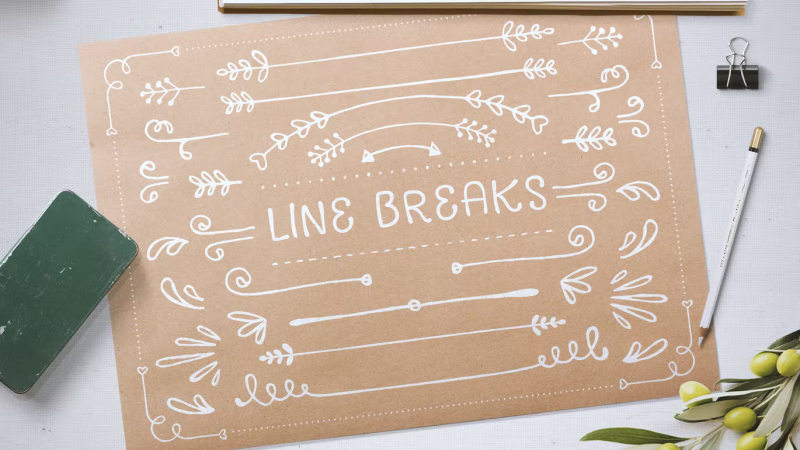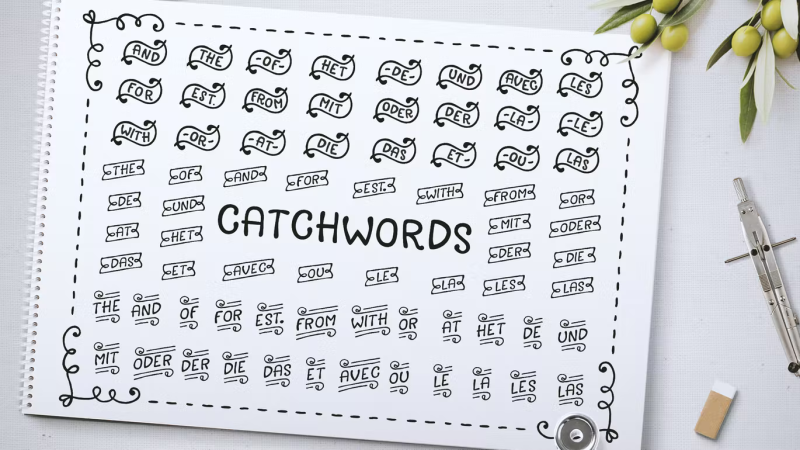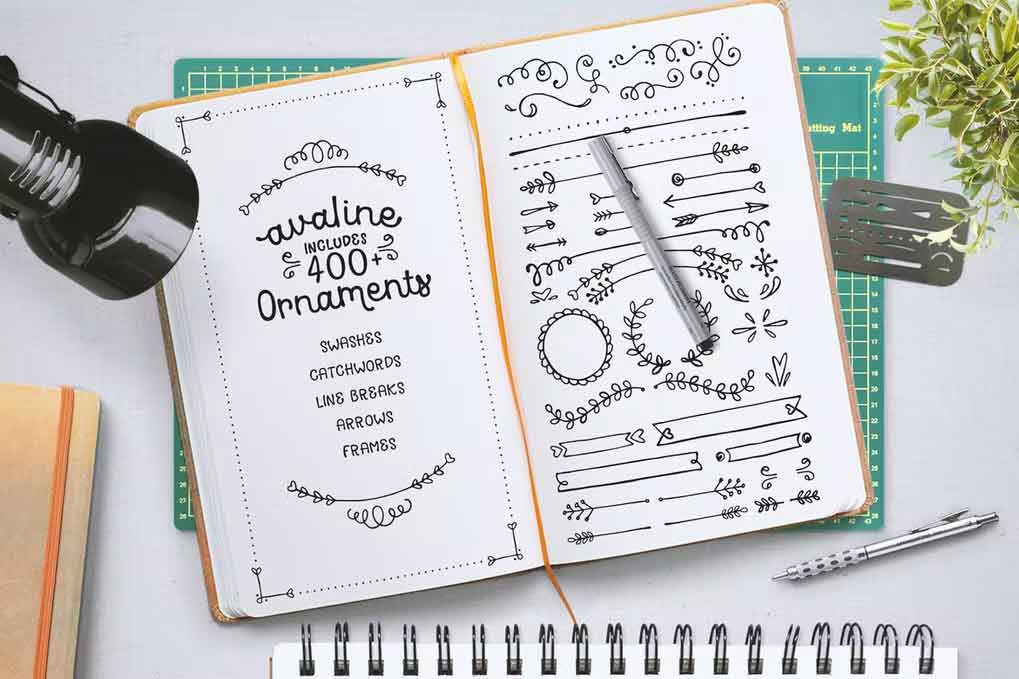
Avaline Extras Font
Avaline is a super smart script font that was 100% handmade. Inspired by hand lettering doodles, the font family combines a mischievous spirit and cheerful style. Its playful letterforms come in Light, Regular, Bold and Sketch, and it comes with tons of language support and fun alternatives.
Packed with OpenType features, Avaline comes together to make a truly authentic hand script family package. Its imperfect hand-drawn style is utilized by contextual alternatives – giving each character 3 subtle variations as well as special styles that appear automatically based on where they appear in a line of text. Stylistic alternatives offer completely different styles for all capital and some lowercase letters. Swashes provide numerous flourish options for ascending & descending letters as well as characters that start or end text lines. Small caps and titling alternatives provide great secondary text options, converting the script letterforms to more proportional small cap ones.
Avaline also comes with a massive set of extras, including catchwords, swashes & flourishes, arrows, borders, line breaks, laurels and frames. Together they make for a truly organic script font bundle.
Where Avaline Extras Font works best
Avaline Extras Font brings a personal, handwritten warmth to invitations, menus and place cards.
Craft brands — coffee, cosmetics, bakery — use scripts like Avaline Extras Font for signature-style logos and labels.
Pair Avaline Extras Font with a plain sans for quotes, stories and Pinterest pins that feel handmade.
What is Avaline Extras Font good for?
Avaline Extras Font is a Script And Handwritten typeface tagged Bold, Handwritten, Playful, Script. It works well for headlines, logos, posters, social media graphics and branding projects that need a distinctive script and handwritten look.